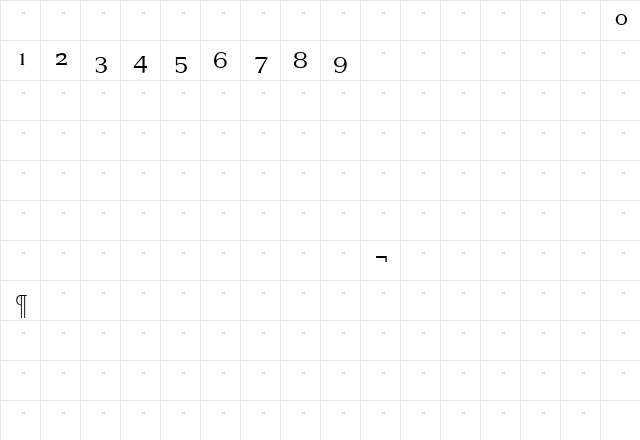
SilveradoLightOldStyleFigures Roman
Design Context for SilveradoLightOldStyleFigures
SilveradoLightOldStyleFigures carries the refined structure of traditional serif typography, with bracketed terminals and considered proportions that communicate credibility and craft. Its slender proportions lend an understated elegance to any composition.